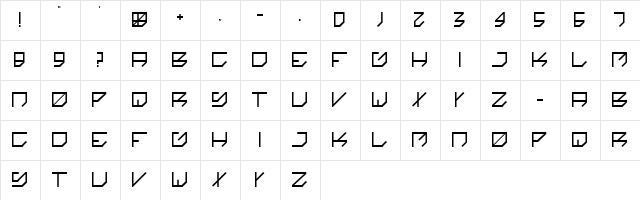
kikakee Regular
| Designer | pbrigham |
Design Context for kikakee Typeface
kikakee is a composed and adaptable typeface that performs quietly and consistently across a wide range of design contexts.